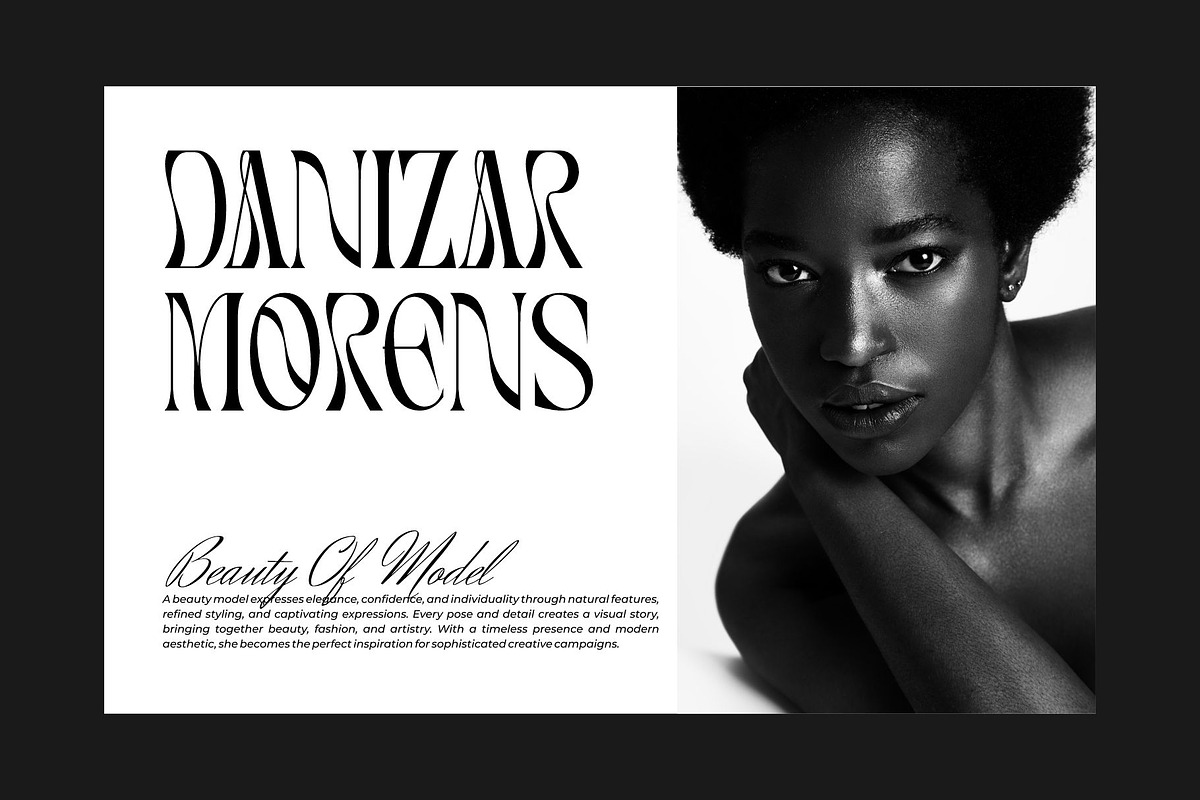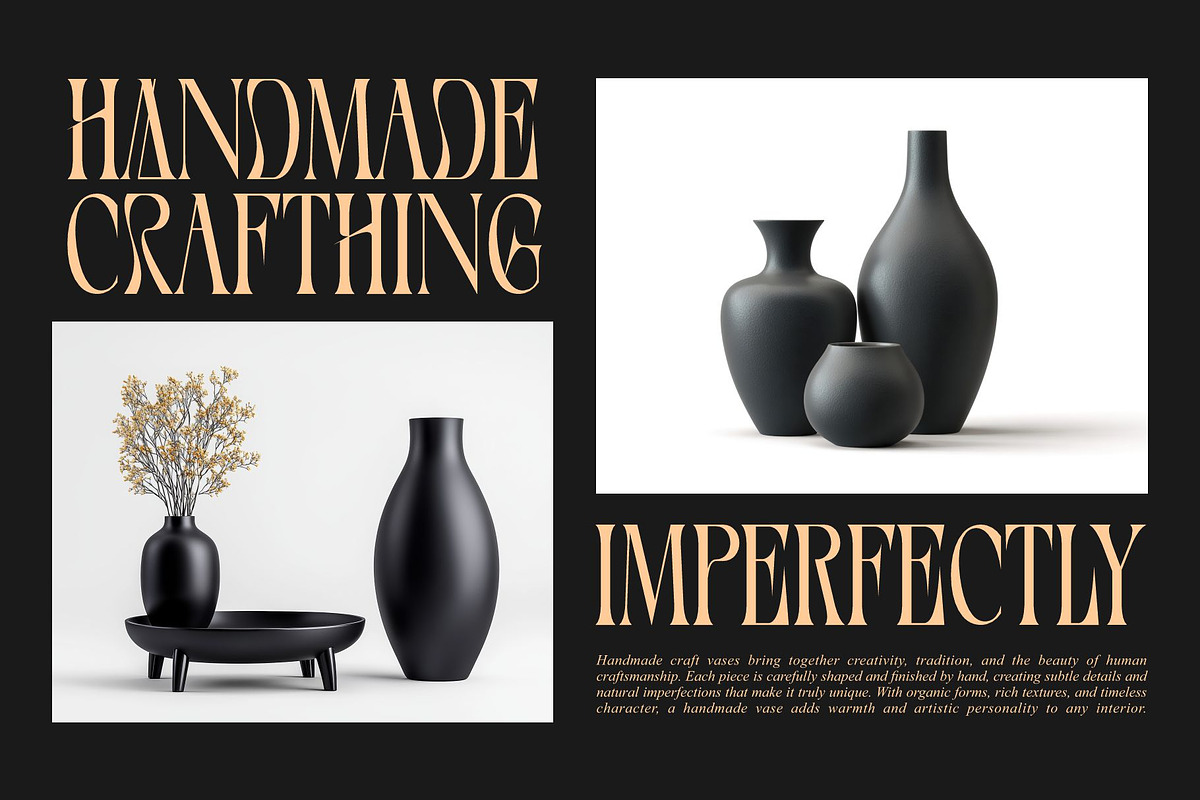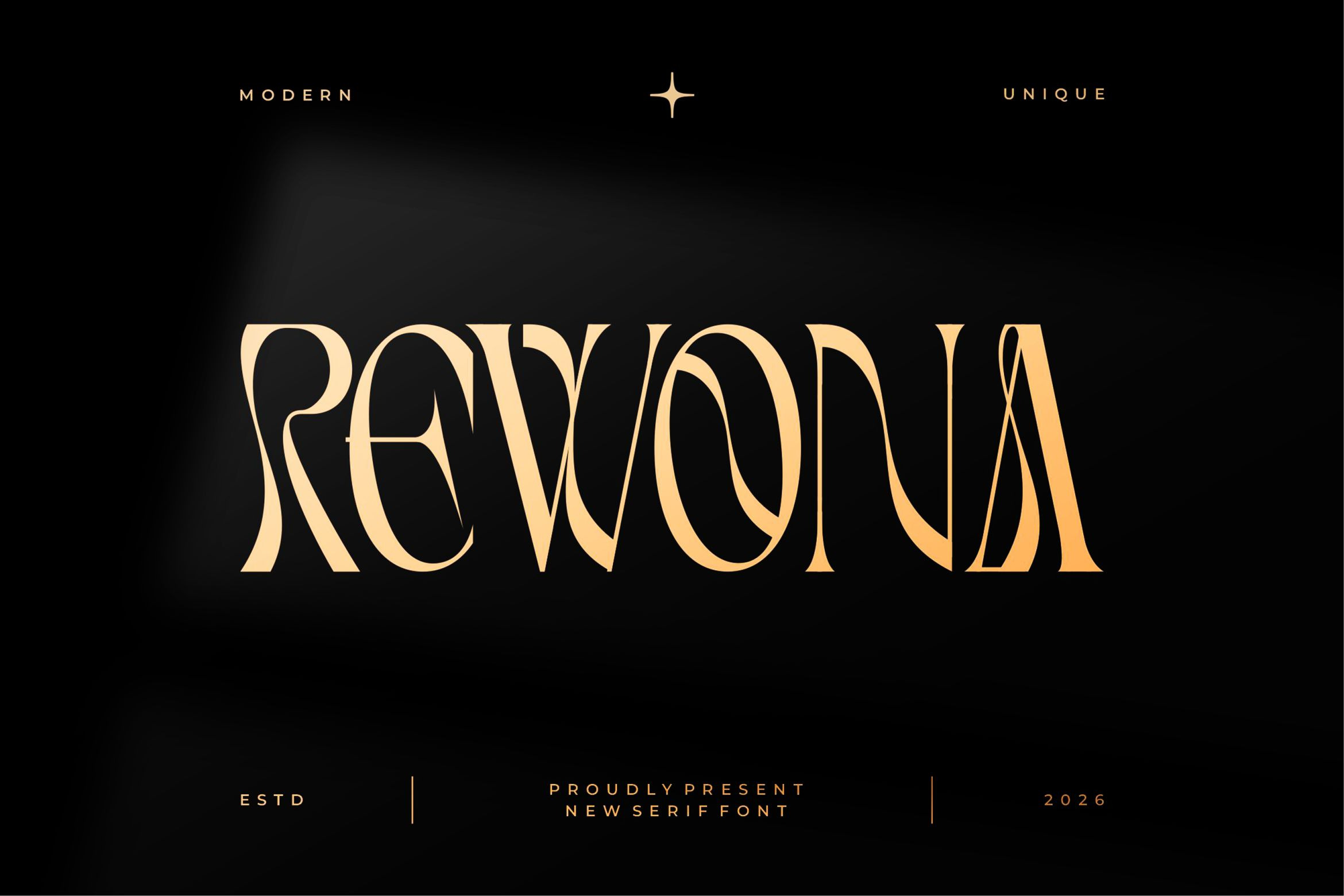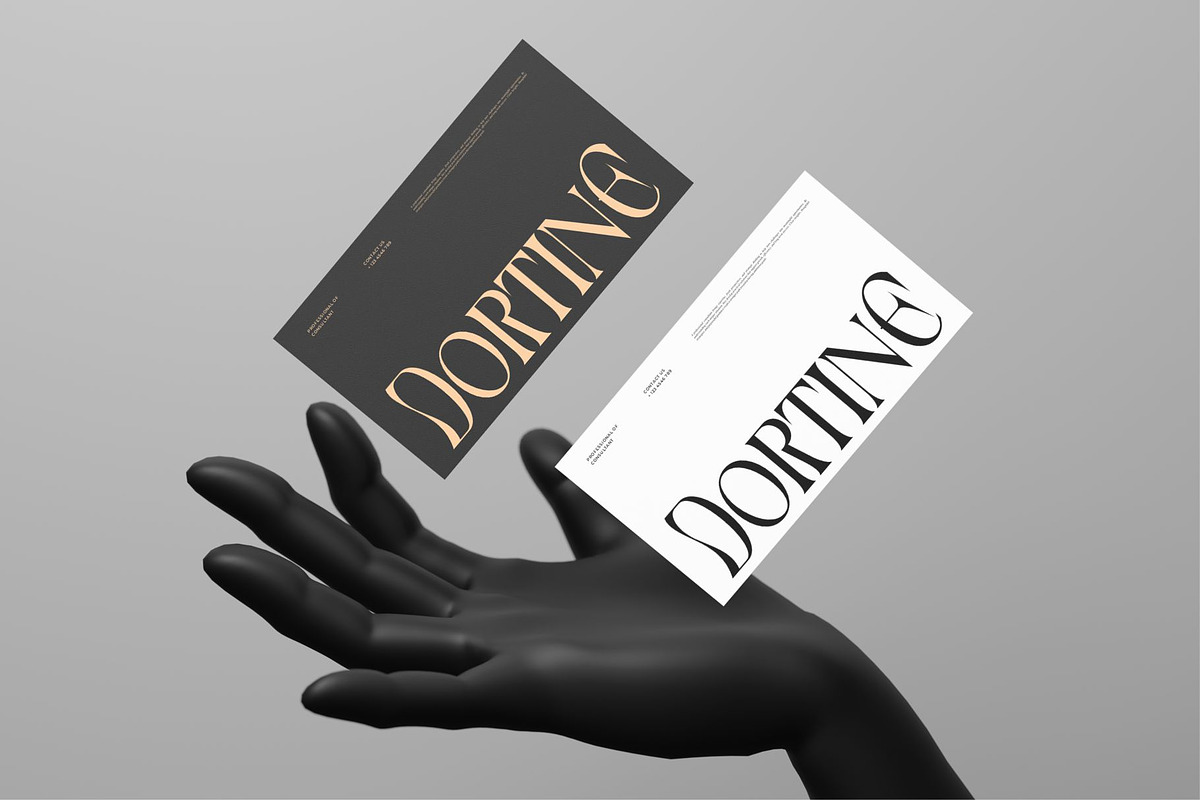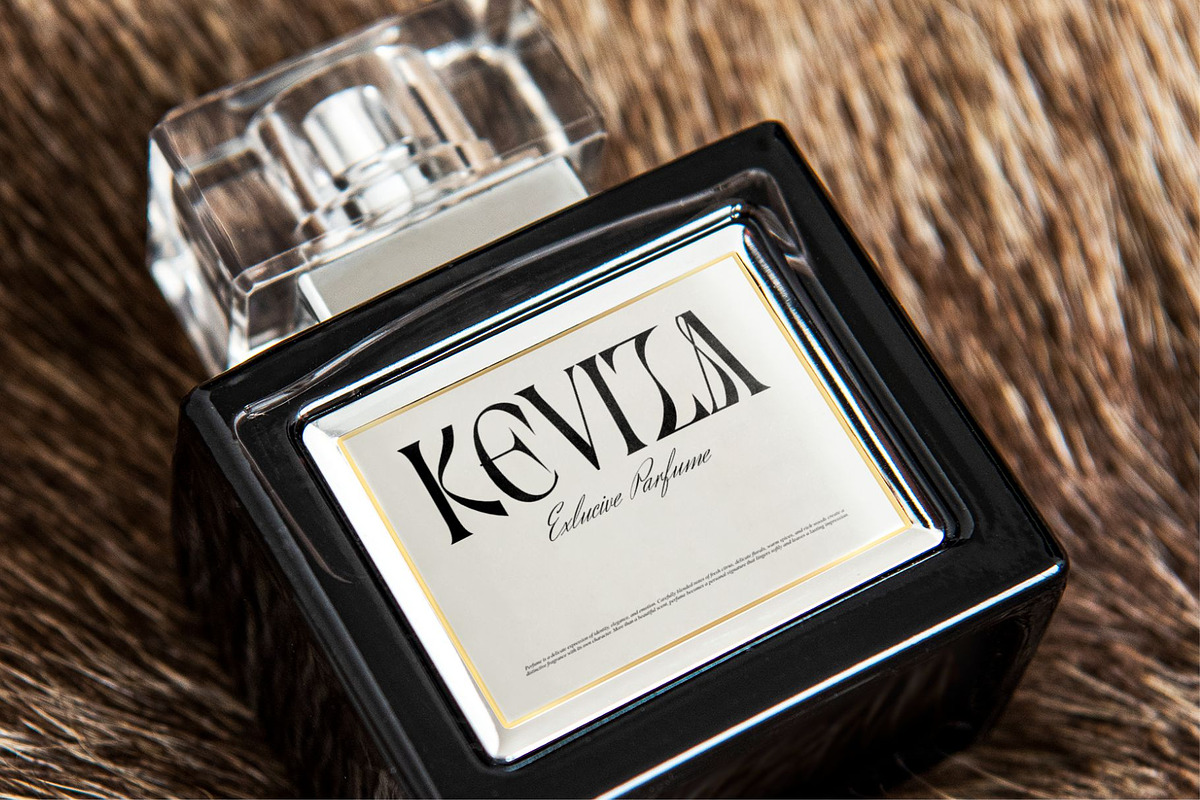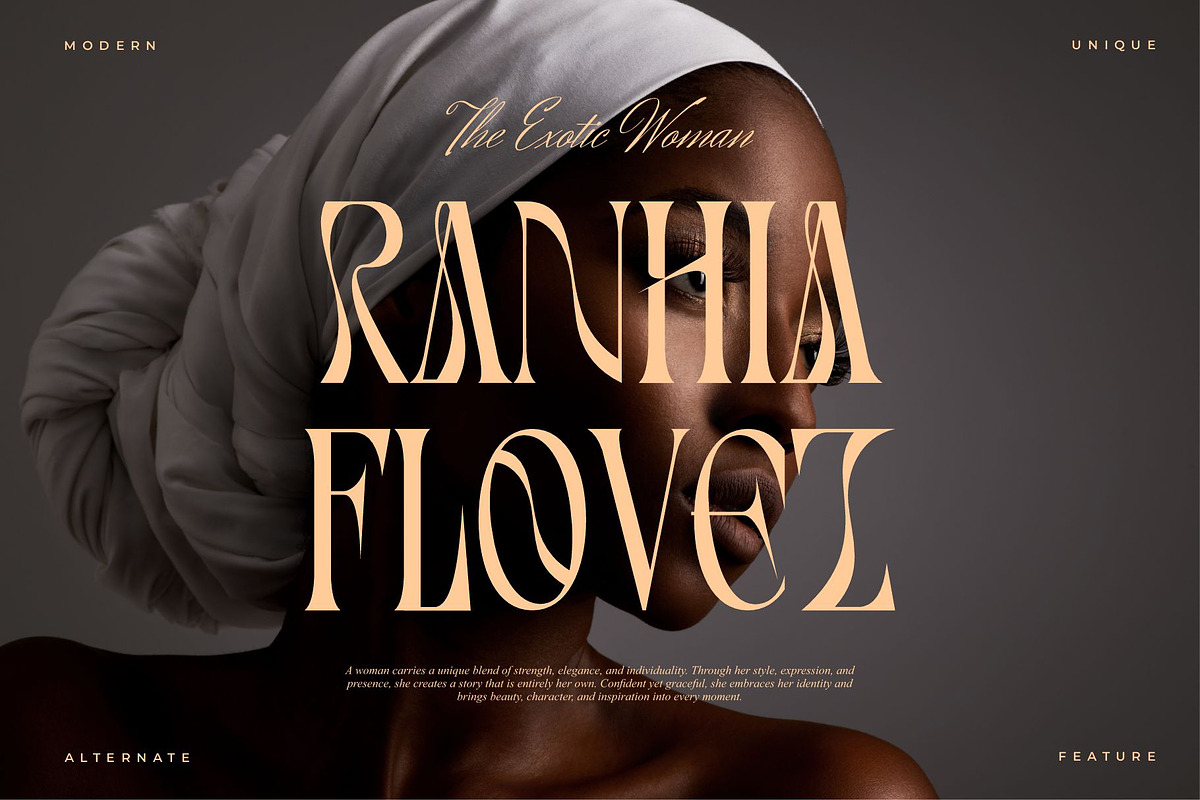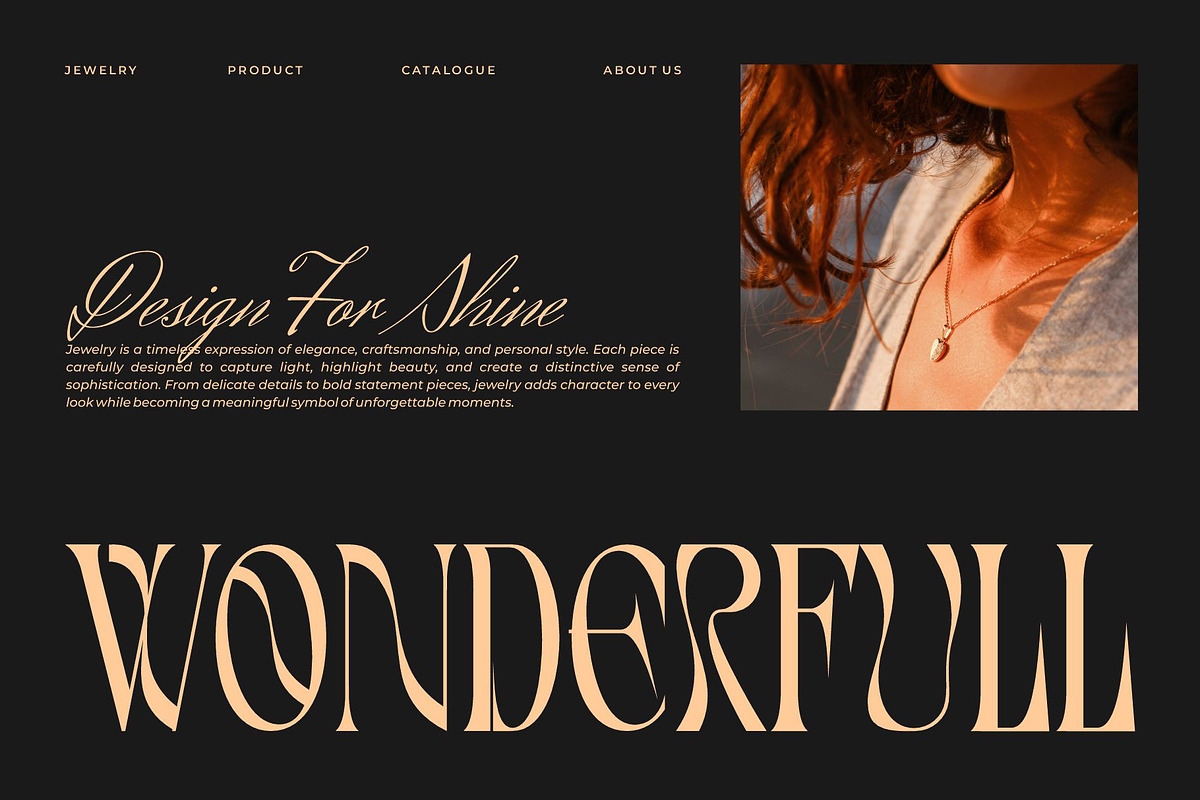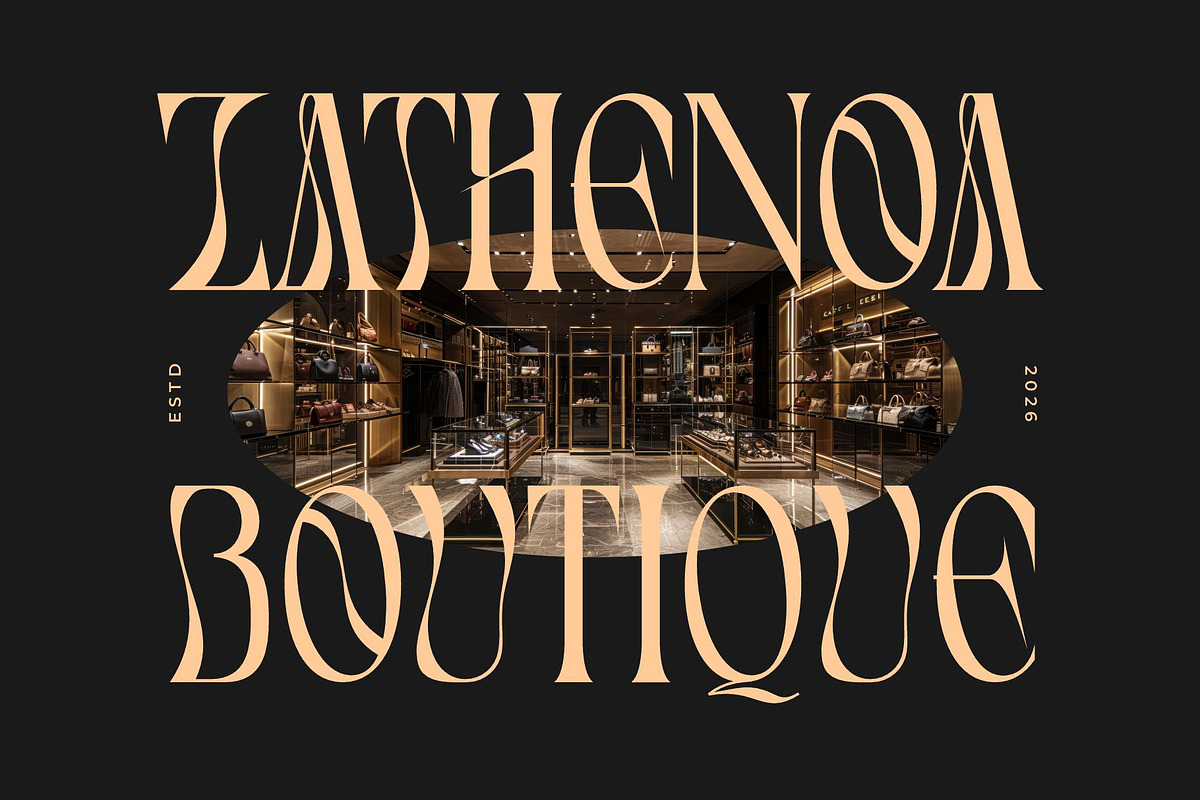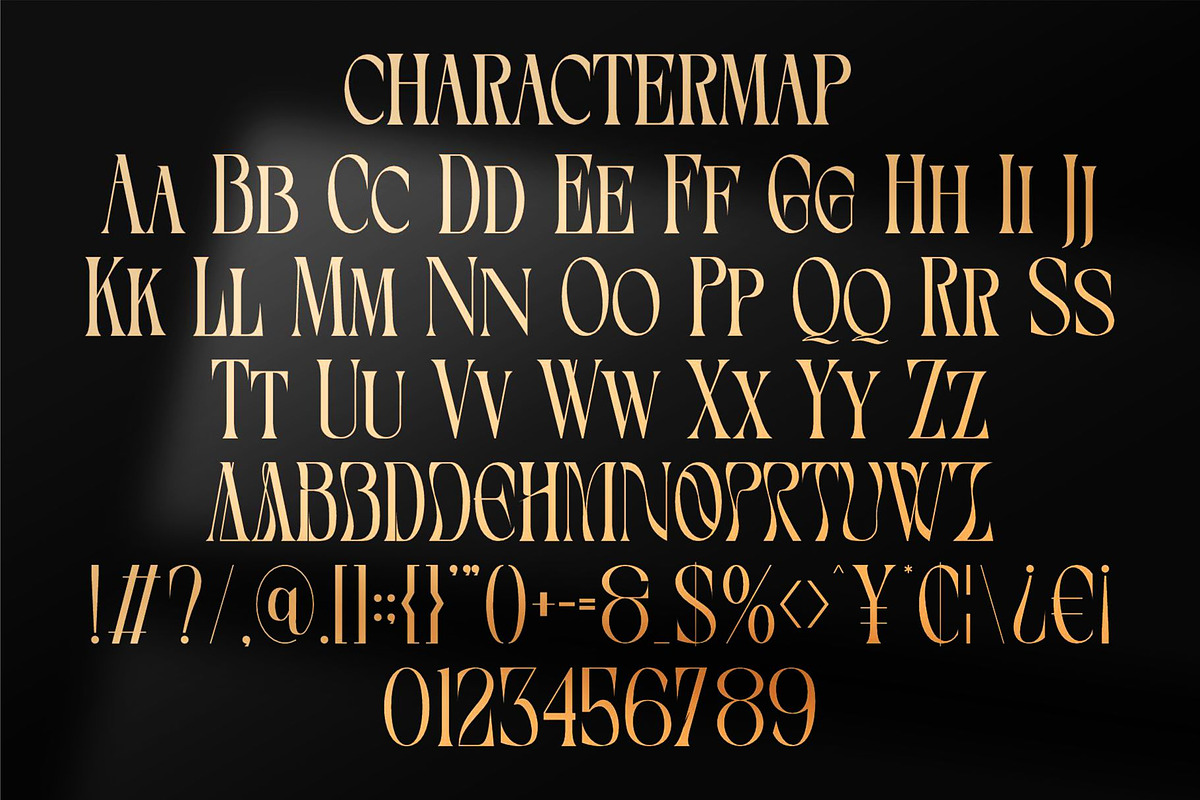
Rewona || Modern Elegant Serif Font
Rewona is a distinctive serif font expertly merging classic elegance with modern flair. Featuring sharp, stylish serifs and smooth, clean lines, Marthi offers a timeless charm coupled with a fresh, dynamic energy. Available in Regular and Bold weights, this font is versatile and adaptable for various projects, be it crafting memorable logos, designing captivating websites, or creating engaging print materials. Simple, stylish, and a tad bold, Marthi brings a vibrant touch to your design work.